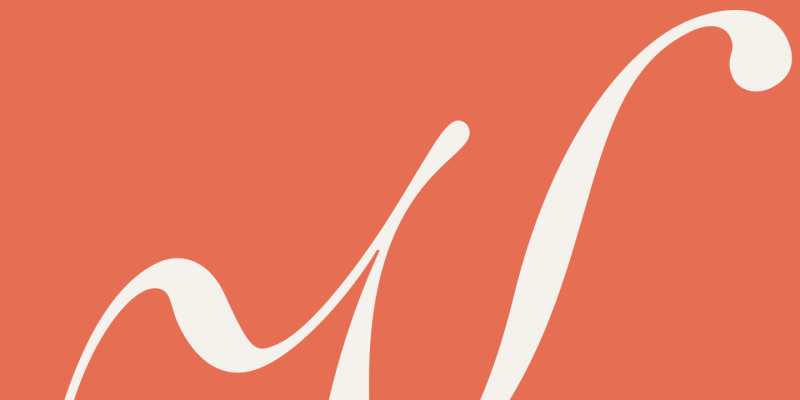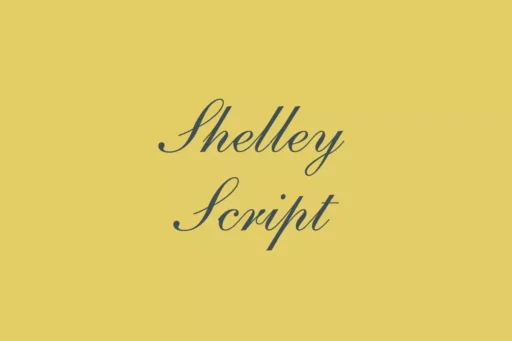
Shelley Script Font
Shelley Script is a script font that attempts to copy the free flow of cursive writing in the most natural way possible. This font has its name derived from the popular Romantic poet, Percy Bysshe Shelley. Shelley Script is a design that recreates the look of handwritten letters and is particularly suitable for any project in need of a touch of class.
It associates with Percy Bysshe Shelley, a famous poet; thus, it has a high historical and literary value and will be beneficial for both print and online publications. Matthew Carter, a renowned English type designer and a very significant personality in the area of typography in the twentieth century, designed this font. His concept was to come up with a font that would have the aesthetics of script writing and, at the same time, offer legibility and quickness of print writing.
It is the modern version of the handwriting style used by George Shelley, an English writing master of the early eighteenth century. Carter’s attention to detail in emulating Shelley’s handwriting resulted in the development of three styles of the Shelley Script font:
Shelley Script is famous for its detailed line work, as well as its contrast between thick and thin strokes, especially in the letters. The letters are connected, and this makes the layout to be fluid and not interrupted, which can be easily associated with calligraphy. It gives a certain flow and unity to the font, which is very suitable for both official and even artistic applications.
It is important to note that Shelley Script is a highly versatile typeface, and it comes with several styles. The font comes in three different variations: Shelley Andante, Shelley Allegro and Shelley Volante. Each style also has a different degree of formality and decoration so designers can find the right one for their specific needs. Shelley Andante is the most conservative of the three, with no swashes or embellishments, while Shelley Allegro and Shelley Volante have more flourish and decoration.
Shelley Script font is a classic font that is best to use in any project and at any time and still look beautiful. It is often applied in creating wedding invitation cards, greetings cards and other materials that are intended for other formal ceremonies. The font is also very suitable for branding and packaging, especially in the fashion, beauty and high-end products industries due to its elegant and timeless look.
Besides print applications, Shelley Script is also a good font to use for digital media. This font is easy to read and visually pleasing, which makes it perfect for use in website headers, social media posts, and e-invitations. Nevertheless, as it is more of a decorative typeface, it is best to use it for headlines and short phrases rather than using it for the main text.
Shelley Script Font is a Script And Handwritten font that brings a professional and versatile look to your projects. Shelley Script is a script font that attempts to copy the free flow of cursive writing in the most natural way possible.